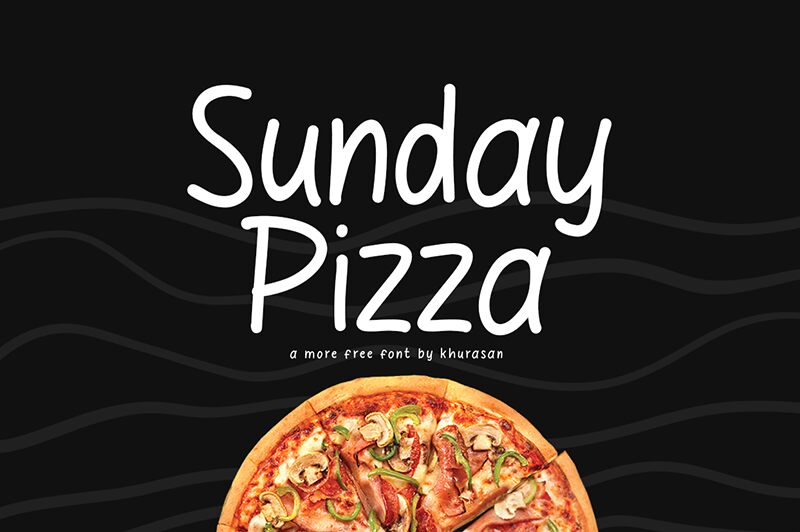
Sunday Pizza
Sunday Pizza, a delightful creation by Khurasan, is a semi-light handwritten font that adds a touch of modernity and cuteness to any design.
Its versatility makes it suitable for various projects ranging from eye-catching posters and captivating logos to vibrant magazine layouts and captivating book covers. Whether you're looking to create visually stunning banners or infuse charm into your social media graphics, Sunday Pizza is the perfect choice. With this amazing font at your disposal, watch as your creative ideas come to life and effortlessly stand out in the crowd.